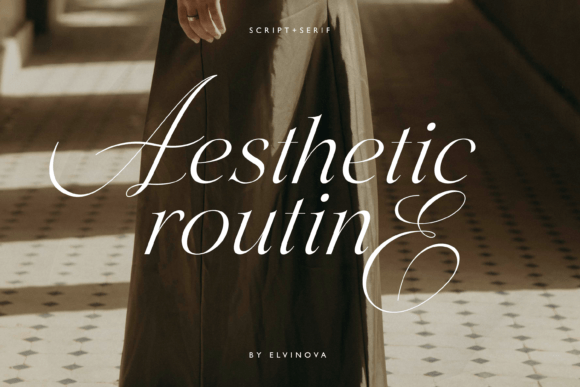
The Aesthetic Routine Font Duo: Elevating Your Designs with Elegance
I’ll never forget the time I was working on a wedding invitation project, and my client asked for a font that exuded elegance and sophistication. I scoured the internet, tried out countless font combinations, but nothing seemed quite right. That was until I stumbled upon the Aesthetic Routine Font duo – a match made in heaven that paired the structured beauty of a serif font with the expressive elegance of a script font.
- ✨ Elegant and sophisticated: The Aesthetic Routine Font duo is perfect for formal print materials such as wedding invitations, upscale branding, and book covers.
- ✅ Legible and readable: The serif font provides clear readability, while the script font adds a touch of elegance and personality.
- 💕 Versatile and flexible: The font duo comes with a range of OpenType features, glyphs, and stylistic alternates, making it easy to customize and adapt to different design projects.
While the Aesthetic Routine Font duo is an excellent choice for many design projects, there are a few things to keep in mind:
- ⚠️ Limited use in digital applications: While the font duo is perfect for print materials, it may not be the best choice for digital applications such as websites or social media graphics, where legibility at small sizes can be a challenge.
- 🤔 Some manual kerning required: As with any font, some manual kerning may be required to achieve optimal results, particularly when using the script font.
The Designer Inspiration Behind the Aesthetic Routine Font Duo
The Aesthetic Routine Font duo was designed by a team of typographers who wanted to create a font that combined the structured beauty of a serif font with the expressive elegance of a script font. The designers drew inspiration from classic typography and modern design trends to create a font duo that is both elegant and versatile.
| Font Name | Aesthetic Routine Font |
| Author | elvinova |
Q: What is the Aesthetic Routine Font duo?
A: The Aesthetic Routine Font duo is a pair of fonts that combines the structured beauty of a serif font with the expressive elegance of a script font.
Q: What is the Aesthetic Routine Font duo best used for?
A: The Aesthetic Routine Font duo is perfect for formal print materials such as wedding invitations, upscale branding, and book covers.
Q: Can I use the Aesthetic Routine Font duo for digital applications?
A: While the font duo can be used for digital applications, it may not be the best choice for small sizes or body text, where legibility can be a challenge.
Q: Does the Aesthetic Routine Font duo come with OpenType features and glyphs?
A: Yes, the Aesthetic Routine Font duo comes with a range of OpenType features and glyphs, making it easy to customize and adapt to different design projects.